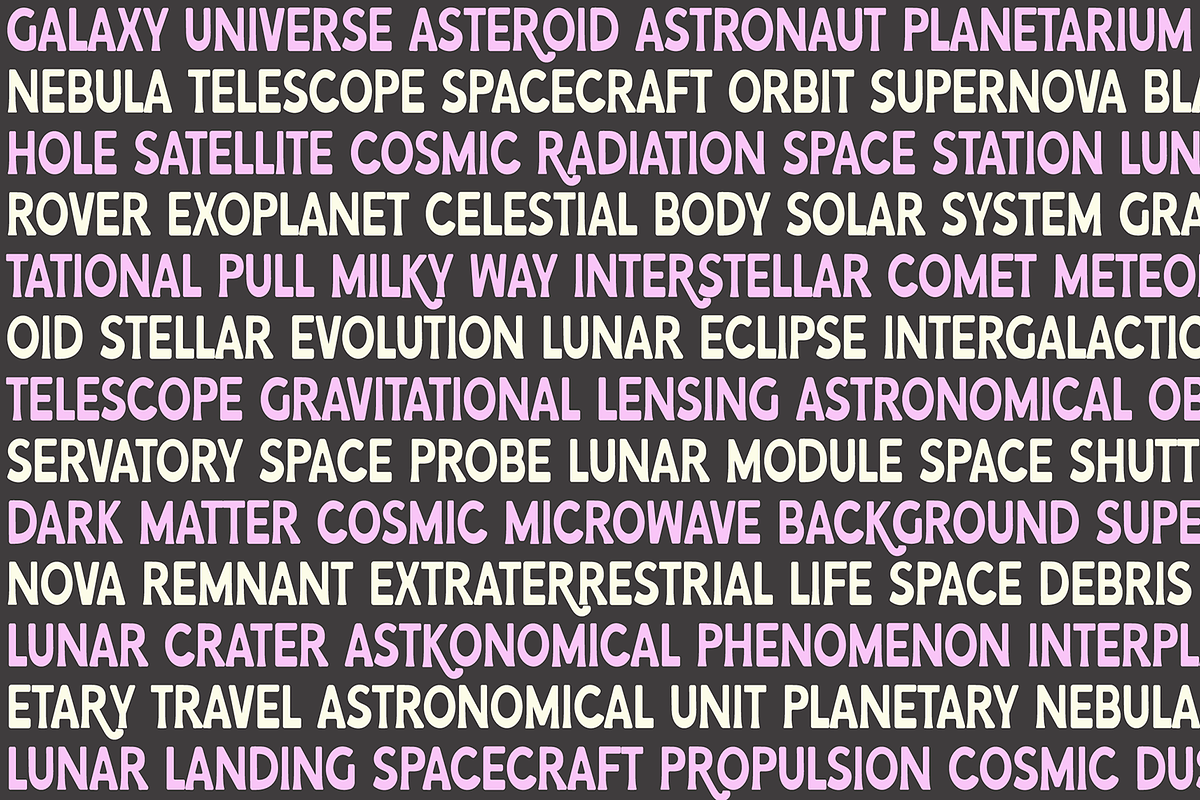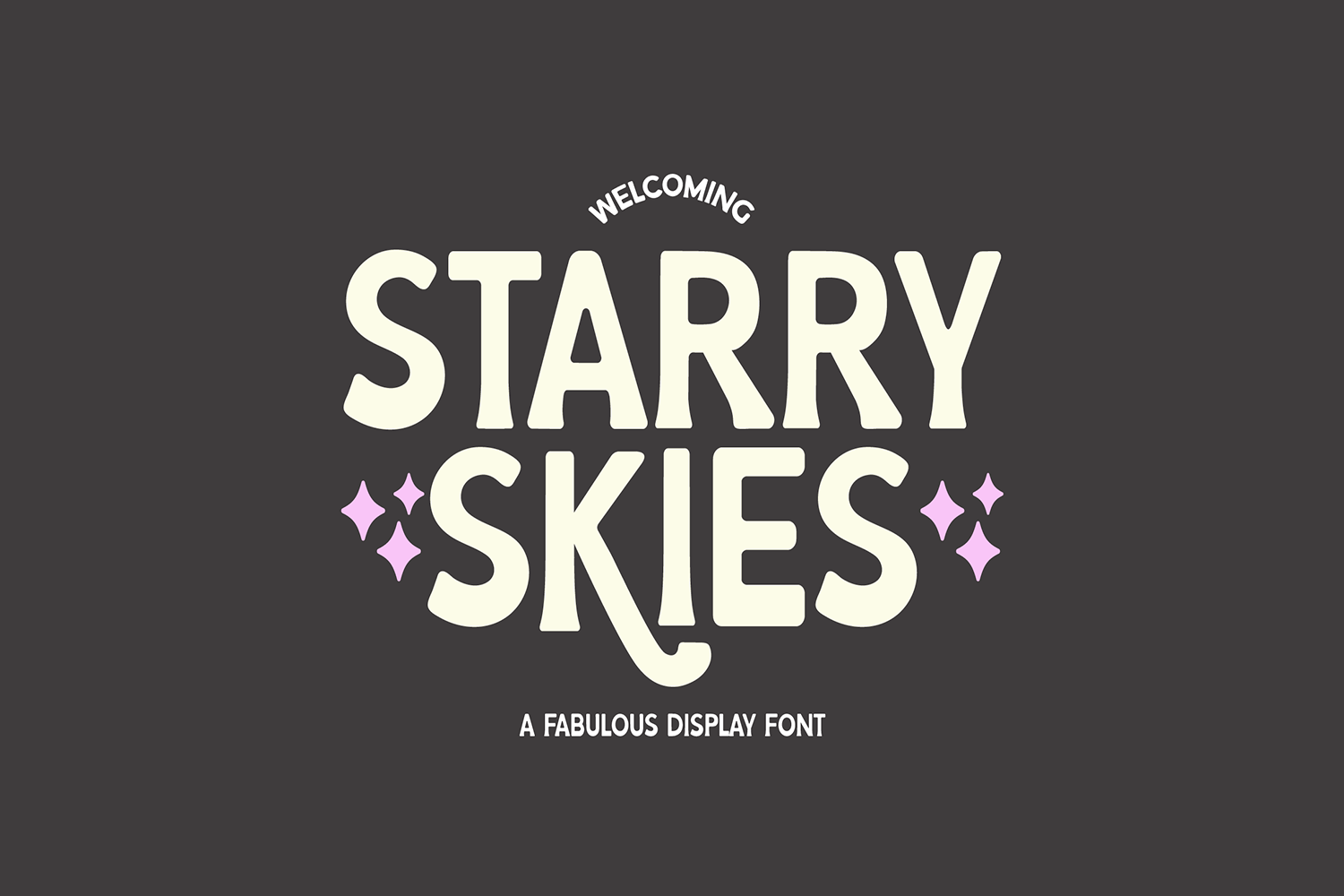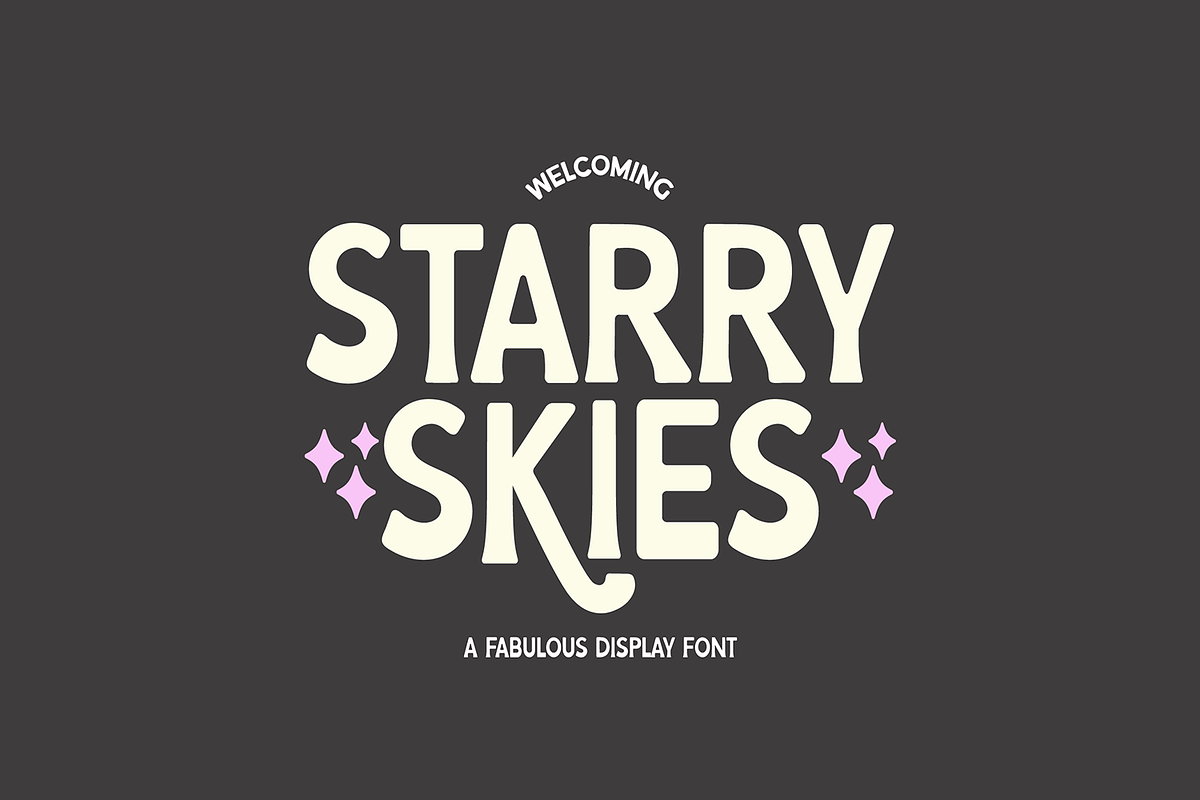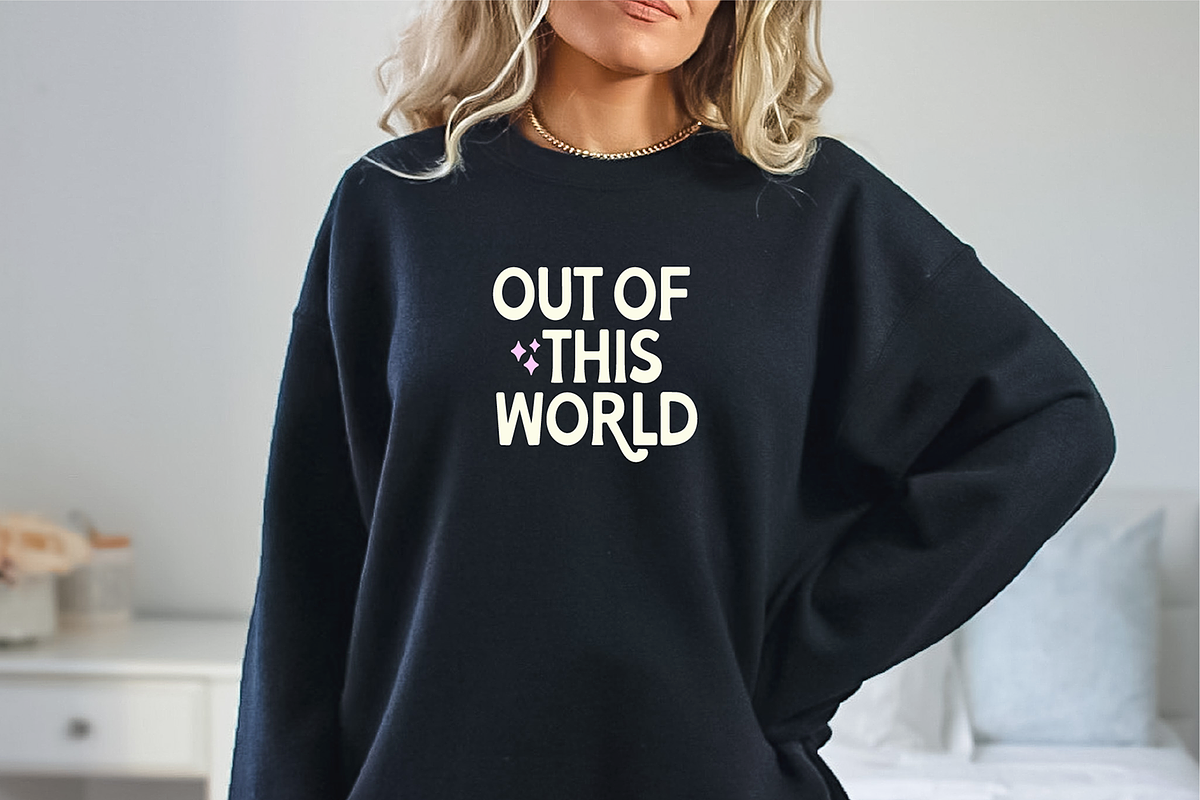
STARRY SKIES Retro Display Font
"Starry Skies" a chunky retro font with a couple extra swooped letters. Use the * key to find the stars.
This font is a trendy retro display font that is perfect for social media or crafty projects. Use it for branding, crafts for decor, invitations, and more! 2 swooped letters (k,r) can be found using your glyph panel or character map.